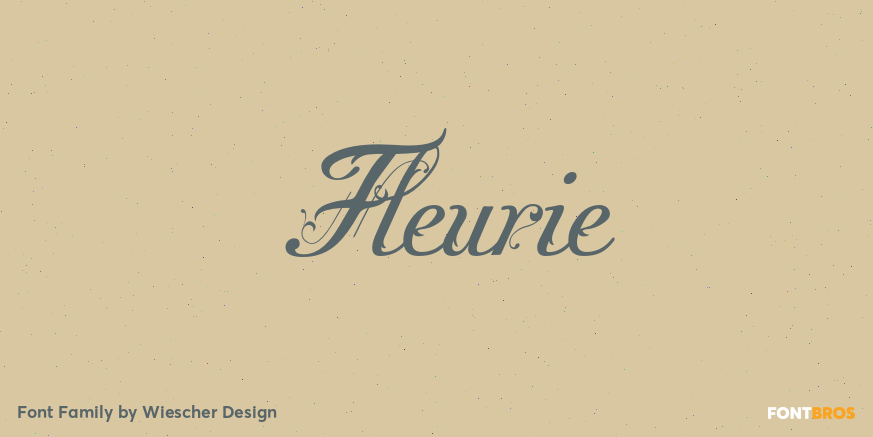
Fleurie
About Fleurie
Fleurie is a small town in France on the high banks of the Beaujolais area where they make excellent, fruity wine. Fleurie means flowery and that is what that village and this font is all about. The font is very much a decorated script inspired by the…